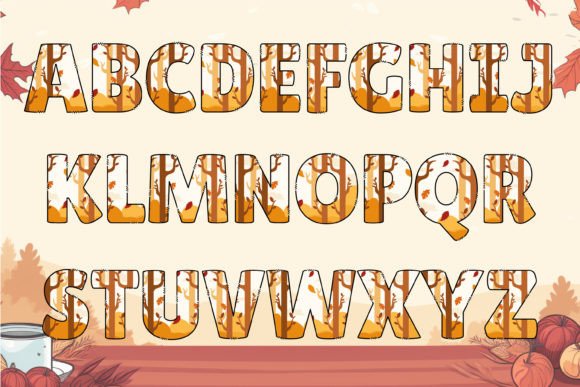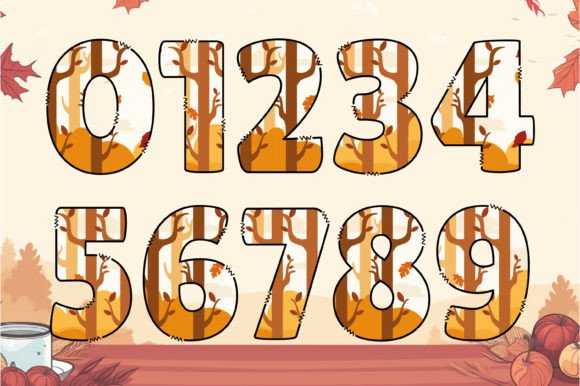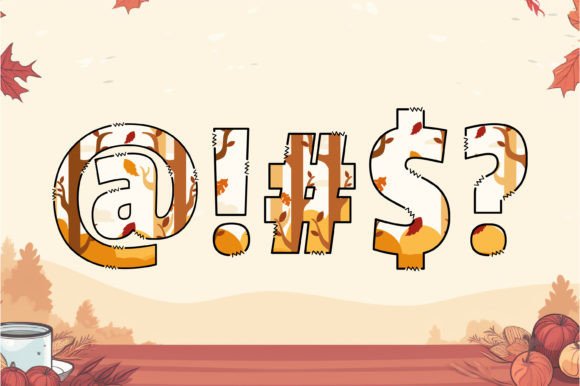
Introducing Autumn Whispers Font: Add a Touch of Warmth to Your Creative Projects
As the seasons change and autumn leaves start to fall, designers and crafters are on the lookout for inspiration to add a touch of warmth and coziness to their creative projects. If you’re one of them, you’re in luck! Introducing Autumn Whispers Font, a fun and bright color font that’s sure to bring a smile to your face and a spark to your designs.
What is Autumn Whispers Font?
Autumn Whispers Font is a vibrant and playful color font that’s perfect for adding a pop of color and personality to your creative projects. With its unique and eye-catching design, this font is sure to stand out and make your projects shine. Whether you’re working on a graphic design project, crafting a handmade card, or creating digital content, Autumn Whispers Font is the perfect addition to your toolkit.
Key Features of Autumn Whispers Font
- Fun and Bright Colors: Autumn Whispers Font features a range of fun and bright colors that are sure to add a touch of warmth and coziness to your projects.
- Playful Design: The font’s playful design makes it perfect for creative projects that require a personal touch.
- Versatile: This font can be used for a wide range of creative projects, from graphic design and crafting to digital content creation.
- Add a Personal Touch: With Autumn Whispers Font, you can add a personal touch to your projects and make them stand out from the crowd.
- Stay on Trend: Autumn Whispers Font is perfect for designers and crafters who want to stay on top of the latest trends and add a touch of seasonal charm to their projects.
Tips and Tricks for Using Autumn Whispers Font
Here are a few tips and tricks to help you get the most out of Autumn Whispers Font:
- Experiment with Colors: Don’t be afraid to try out different color combinations to find the perfect look for your project.
- Mix and Match: Combine Autumn Whispers Font with other fonts and design elements to create a unique and eye-catching look.
- Pay Attention to Details: Take the time to adjust the font size, style, and spacing to ensure your project looks its best.
Autumn Whispers Font is a fun and bright color font that’s perfect for designers and crafters who want to add a touch of warmth and coziness to their creative projects. With its playful design, easy-to-use interface, and versatile features, this font is sure to become a favorite in your toolkit. So why wait? Download Autumn Whispers Font today and start adding a personal touch to your projects!